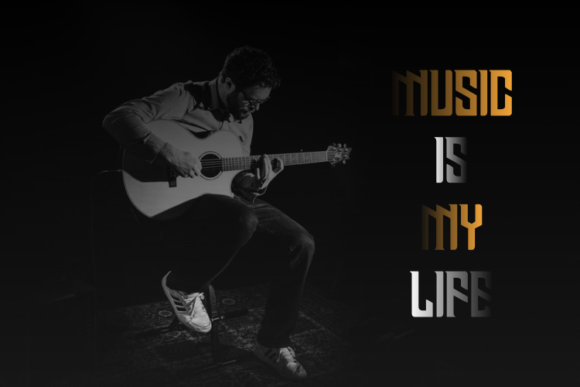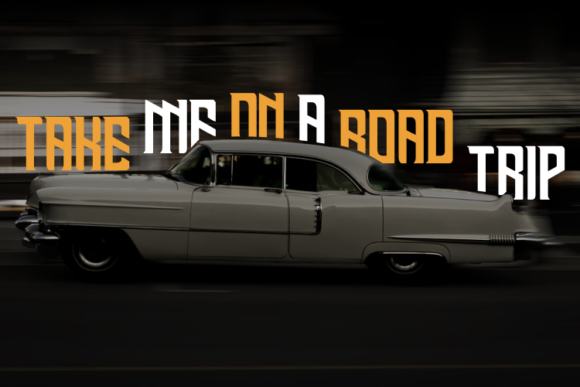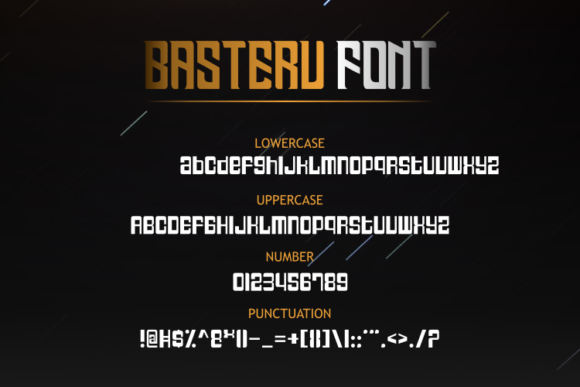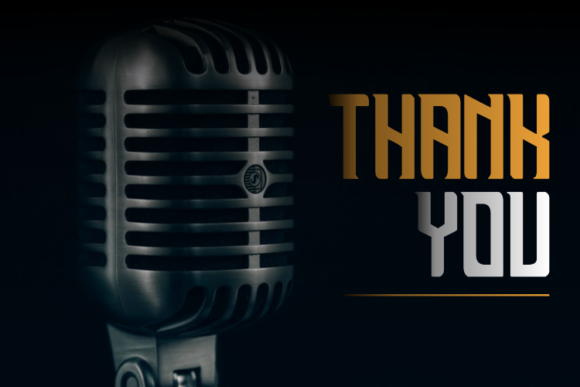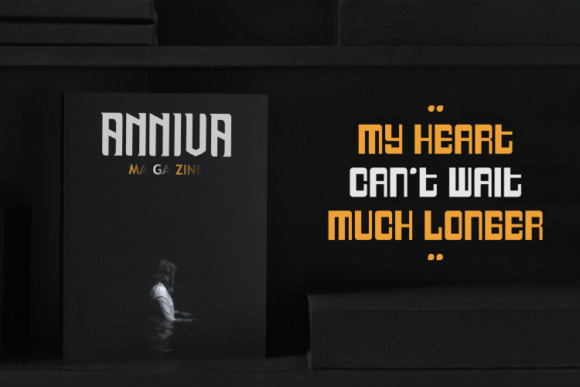
Serif Fonts Basteru Font 0 191 FacebookTwitterPinterestWhatsApp 1 of 7 CAMPFIRE FONT SPECIMEN Campfire is a strong slab serif font. With its neat and beautiful arrangement of letters, this typeface will look outstanding in both formal and non-formal designs.